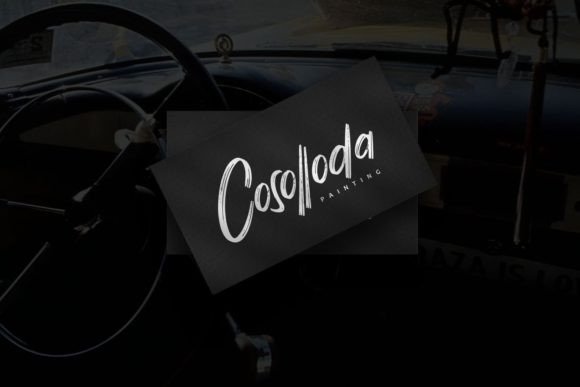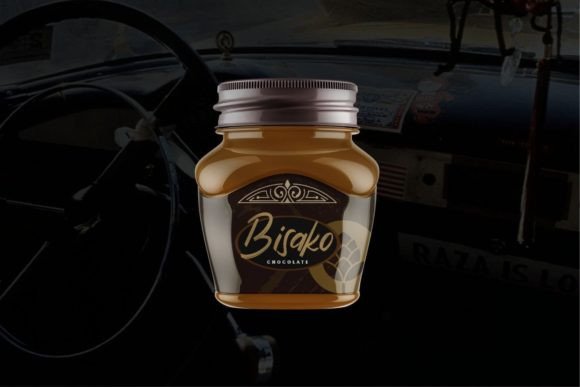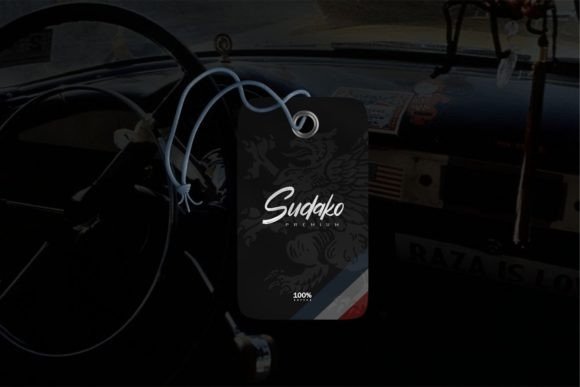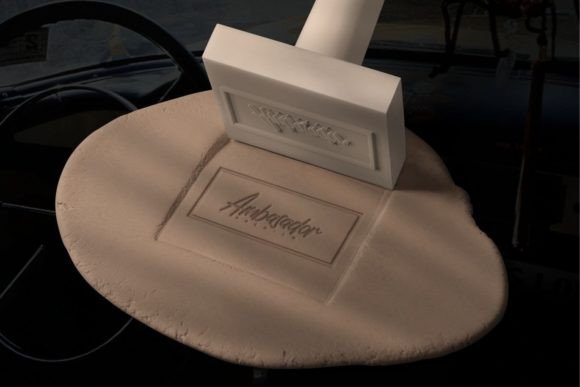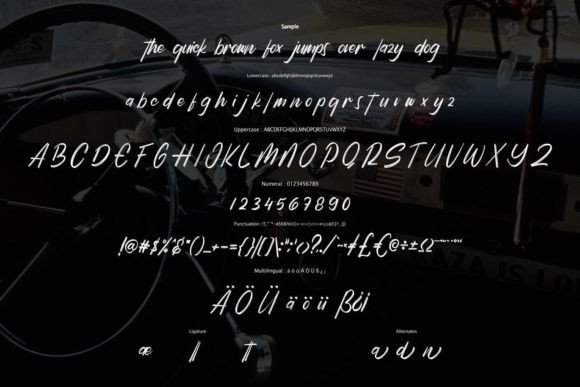
Biallion Font: Elevate Your Designs with a Fresh and Modern Handwritten Brush Font
Are you tired of using the same old fonts in your designs? Do you want to add a touch of personality and elegance to your creative projects? Look no further than the Biallion Font, a fresh and modern handwritten brush font that’s sure to take your designs to the next level. In this article, we’ll explore the features and benefits of Biallion Font, and show you how it can elevate your designs to new heights.
A Fresh and Modern Handwritten Brush Font
Biallion Font is a beautifully crafted handwritten brush font that’s perfect for designers and crafters who want to add a personal touch to their work. With its fresh and modern look, Biallion Font is incredibly versatile and can be used in a wide range of designs, from wedding invitations and branding materials to social media graphics and digital art.
One of the standout features of Biallion Font is its unique and elegant handwritten style. The font’s brush strokes and imperfections give it a warm and organic feel that’s perfect for creating designs that are both sophisticated and approachable.
Incredibly Versatile
Biallion Font is designed to be incredibly versatile, making it perfect for a wide range of design applications. Whether you’re creating a logo, a brochure, or a social media graphic, Biallion Font can help you create a design that’s both visually appealing and effective.
The font’s versatility is due in part to its clean and simple design. Biallion Font is easy to read and works well in both large and small sizes, making it perfect for use in a variety of design contexts.
Another great feature of Biallion Font is that it’s PUA (Private Use Area) encoded. This means that you can access all of the font’s amazing glyphs and ligatures with ease, giving you even more creative options when it comes to designing with Biallion Font.
With PUA encoding, you can easily access the font’s additional features, such as swashes, alternates, and ornaments, using a program like Adobe Illustrator or Photoshop. This makes it easy to add an extra level of detail and personality to your designs.
Elevate Your Designs to the Highest Levels
So how can Biallion Font help you elevate your designs to the highest levels? Here are just a few ways:
- Add a personal touch: Biallion Font’s handwritten style gives your designs a personal and human touch that’s hard to achieve with more traditional fonts.
- Stand out from the crowd: With its unique and elegant design, Biallion Font can help your designs stand out from the crowd and grab attention.
- Create a cohesive brand identity: Biallion Font can be used to create a cohesive brand identity that’s both sophisticated and approachable.
Biallion Font is perfect for designers and crafters who want to add a touch of elegance and sophistication to their work. Whether you’re creating designs for clients or working on personal projects, Biallion Font can help you achieve your creative goals.
Some of the types of projects that Biallion Font is well-suited for include:
- Branding materials, such as logos and brochures
- Social media graphics and digital art
- Packaging design
In conclusion, Biallion Font is a fresh and modern handwritten brush font that’s perfect for designers and crafters who want to add a touch of elegance and sophistication to their work. With its incredibly versatile design, PUA encoding, and unique handwritten style, Biallion Font is sure to elevate your designs to new heights.